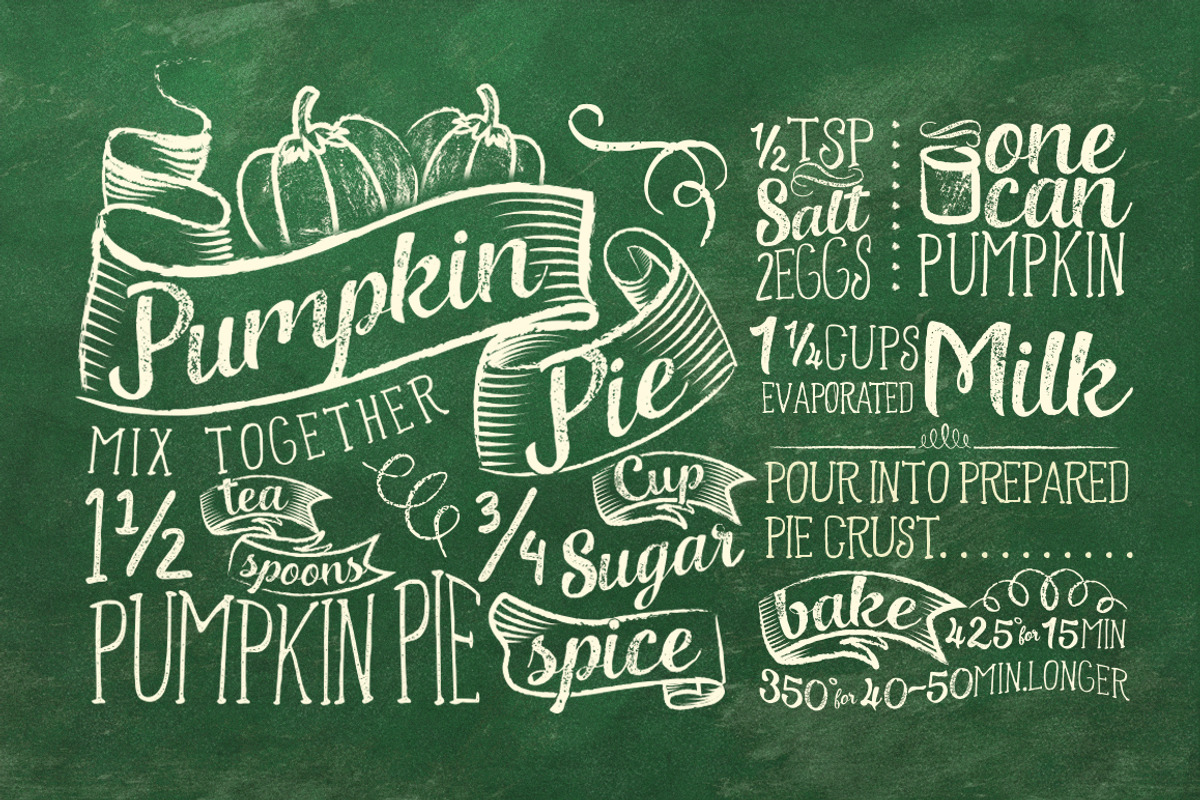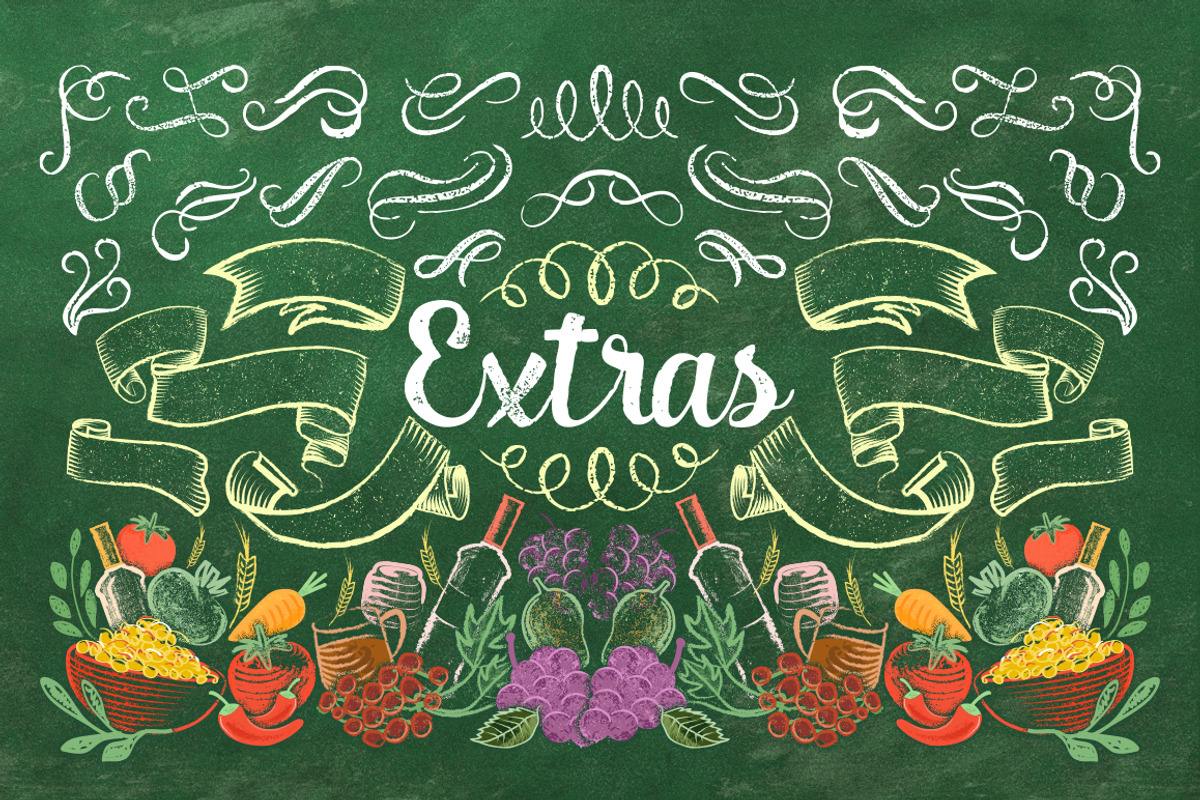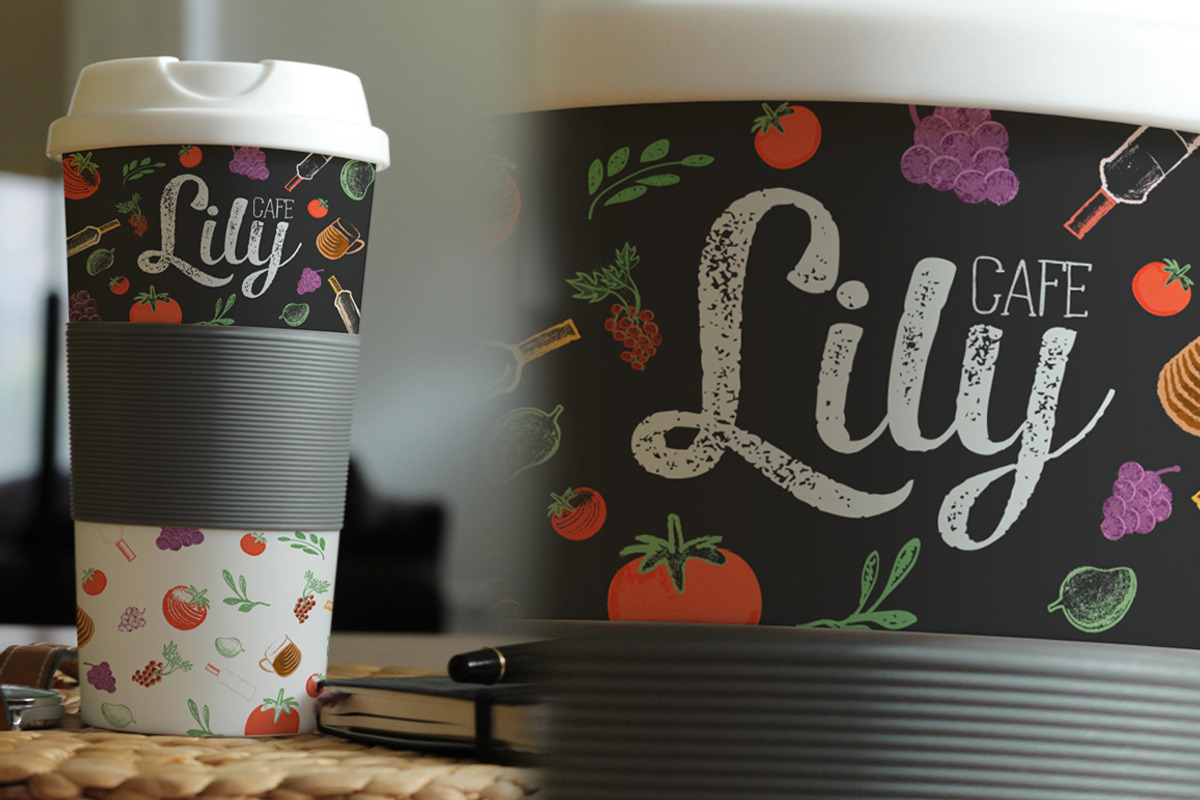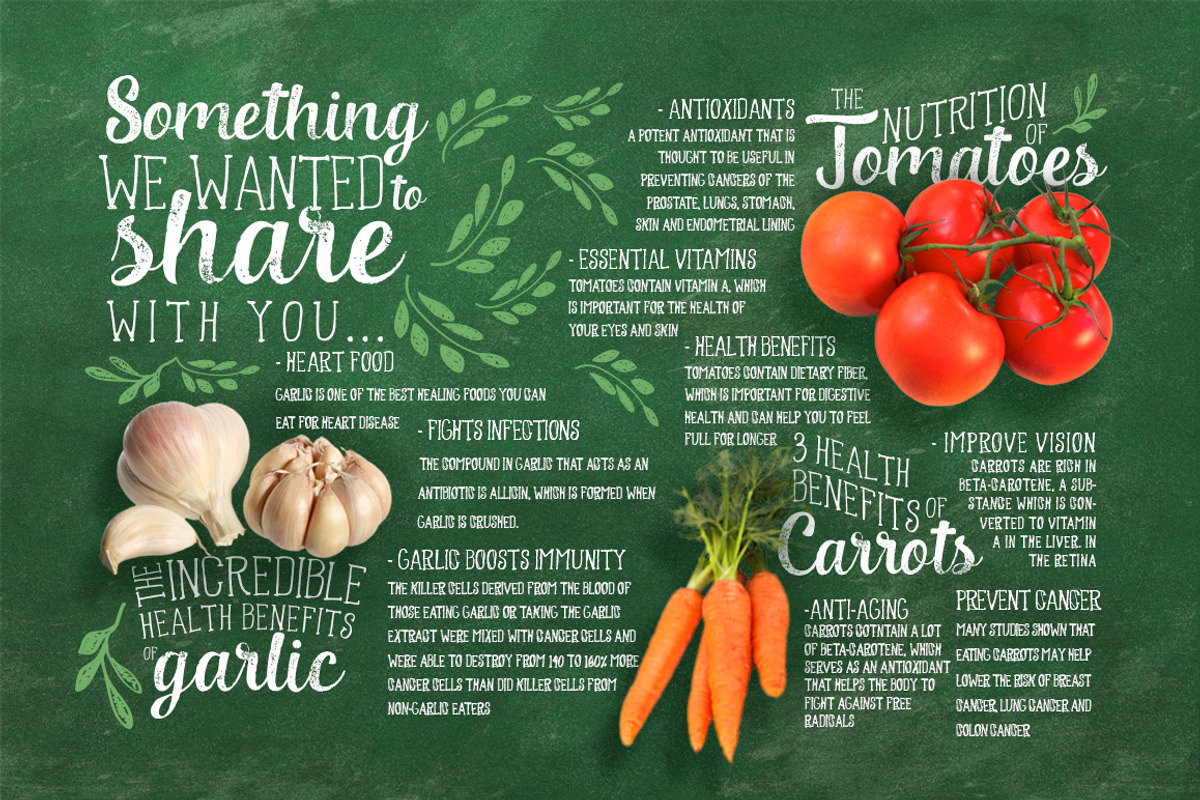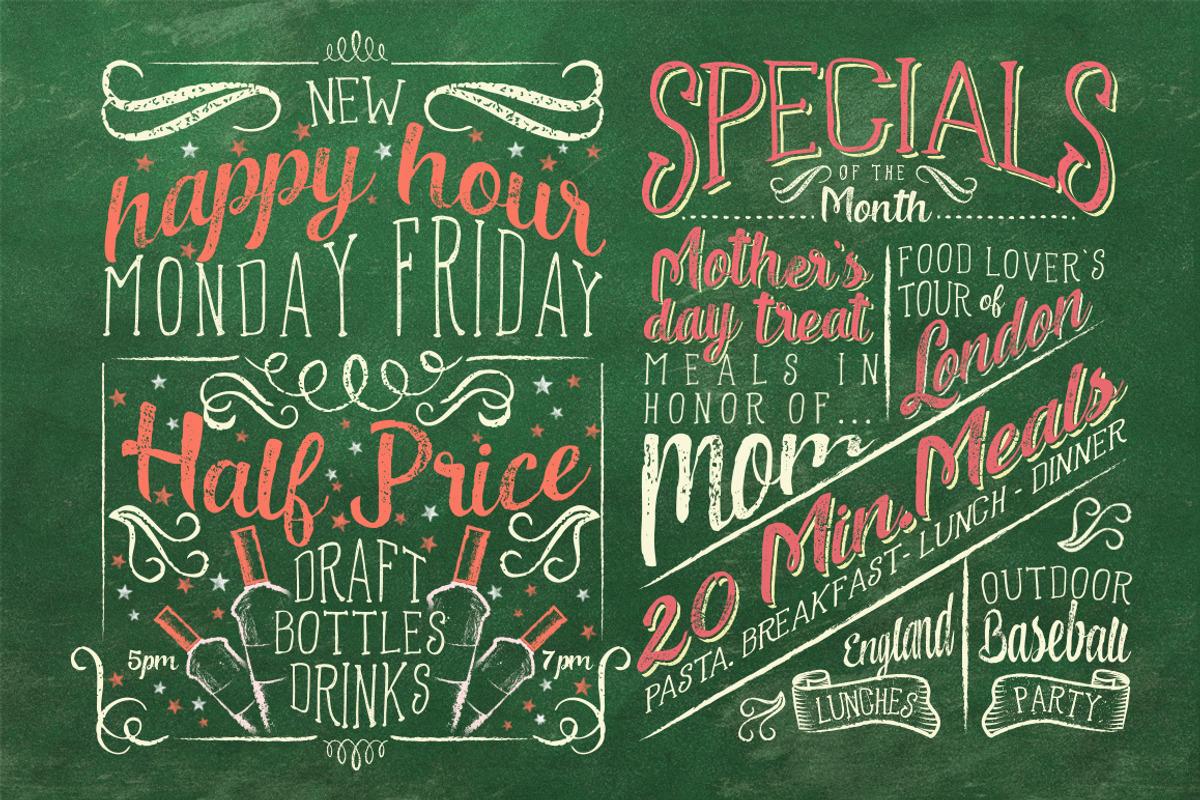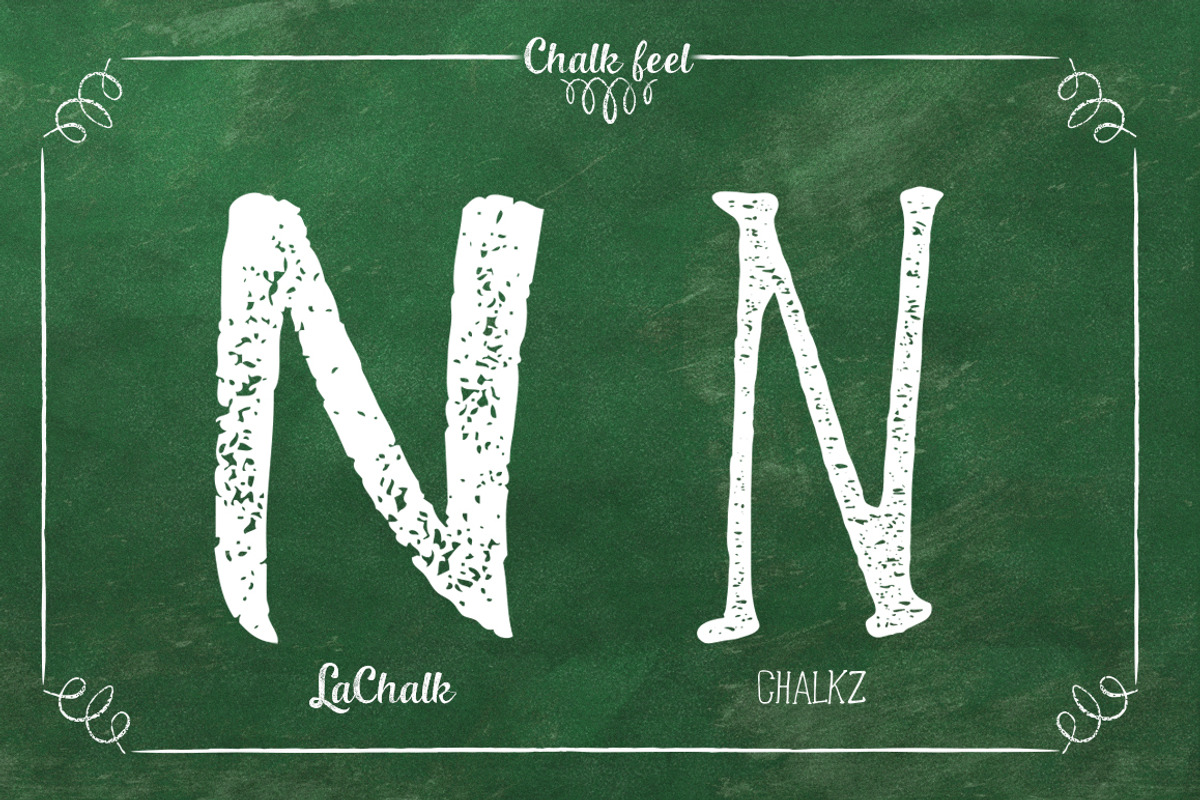
LaChalk Typeface
IntroducingLaChalkTypeface
Here is new product, It's called LaChalk. LaChalk inspired by many lettering on menuboard the cafe, and it's specially designed for the cafe and restaurant who use chalkconcept, for lettering, logo, posters, etc. and also a touch of extras makes this font look stylist.